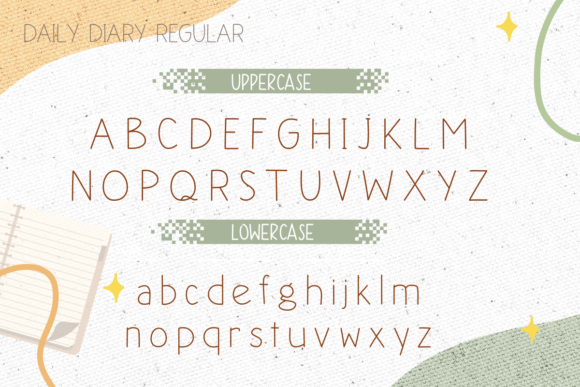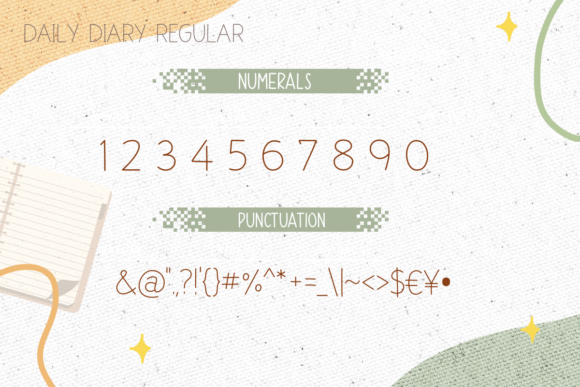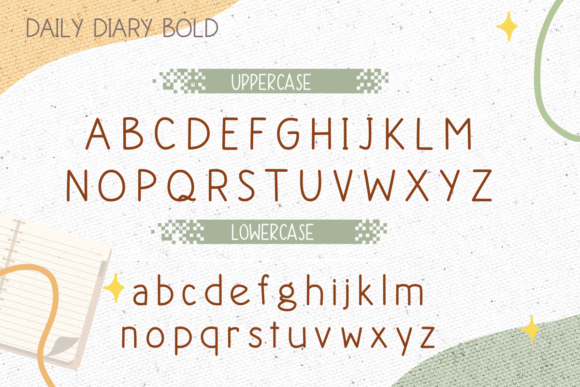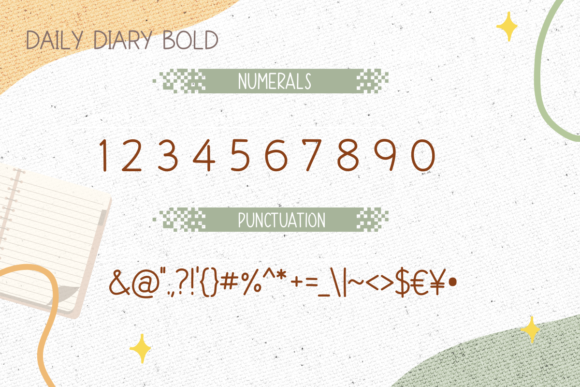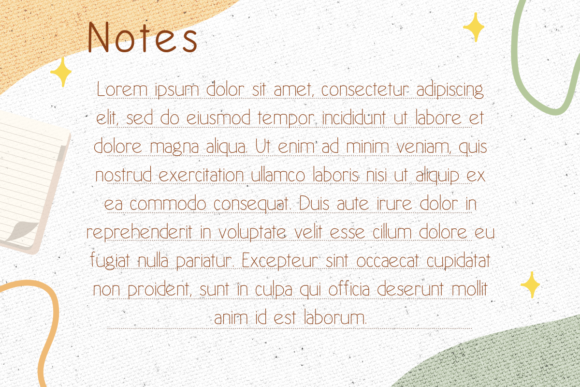
The Daily Diary Font: A Designer’s New Best Friend
First Impressions: A Cool and Slim Sans Serif Font
The Daily Diary font is a cool and slim sans serif font that has become my go-to for various design projects. Its clean and minimalist aesthetic makes it perfect for branding projects, logos, t-shirt printing, and creative products. The font’s simplicity and elegance allow it to stand out in a variety of contexts, making it an excellent choice for designers, crafters, and creative hobbyists.
An Honest Review: What I Love and What I Don’t
- ✅ Clean and minimalist design: The Daily Diary font has a sleek and modern look that works well for a variety of design projects.
- ✅ Highly versatile: This font can be used for logos, t-shirt printing, creative products, and more.
- ✅ Easy to read: The font’s simplicity makes it easy to read, even at small sizes.
- ✅ OpenType features: The Daily Diary font supports OpenType features, which allow for advanced typography and styling options.
- ⚠️ Limited glyphs: Some users may find that the font has a limited number of glyphs, which could be a drawback for certain projects.
- ⚠️ Not suitable for body text: While the font is easy to read, it’s not ideal for large blocks of body text due to its slim design.
The Designer Inspiration Behind Daily Diary Font
The Daily Diary font was designed with the intention of creating a clean and minimalist sans serif font that could be used for a variety of design projects. The designer aimed to create a font that was both elegant and versatile, making it perfect for branding, advertising, and creative projects. The font’s simplicity and elegance are inspired by modern design trends and the desire to create a font that could be used in a variety of contexts.
Q: What is the Daily Diary font best suited for?
A: The Daily Diary font is best suited for branding projects, logos, t-shirt printing, and creative products.
Q: Is the Daily Diary font suitable for body text?
A: While the font is easy to read, it’s not ideal for large blocks of body text due to its slim design.